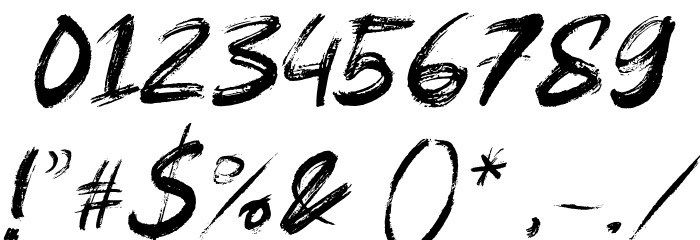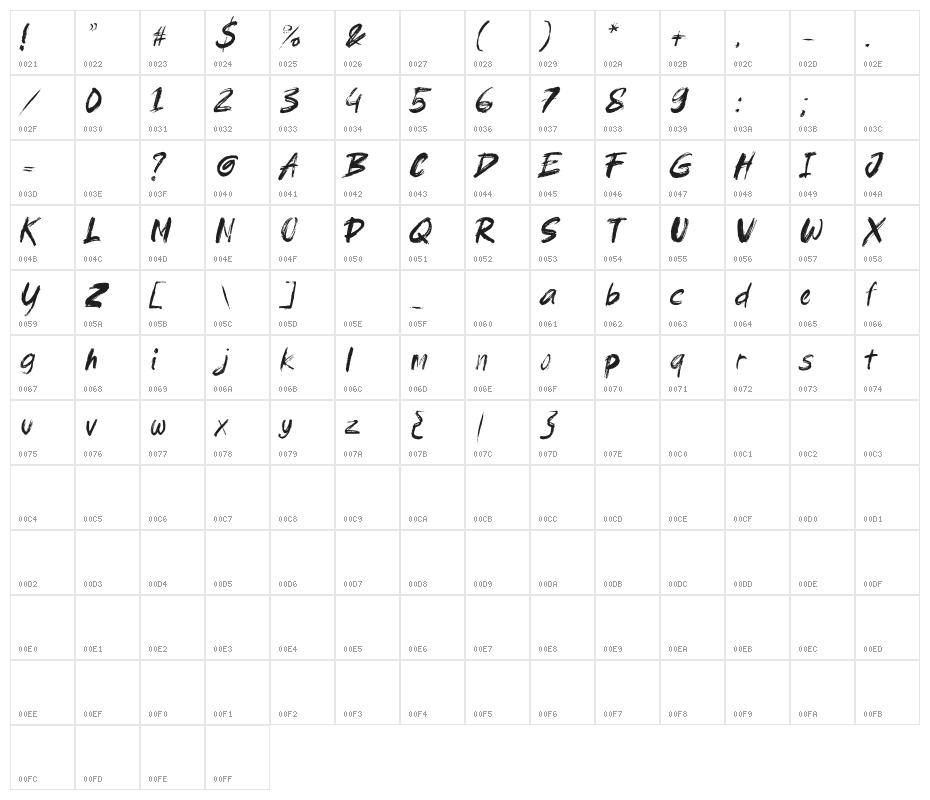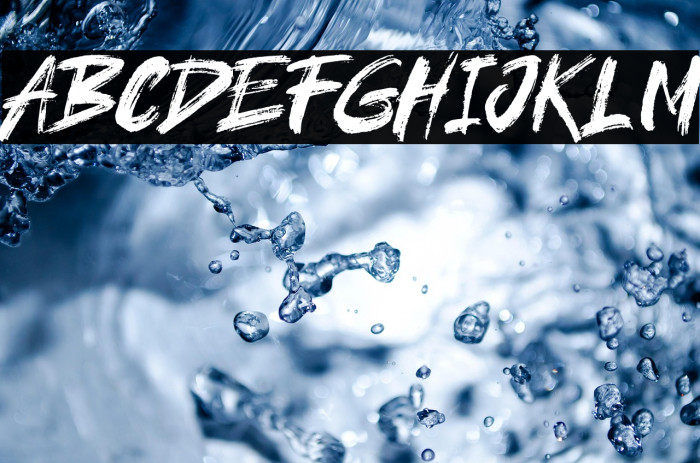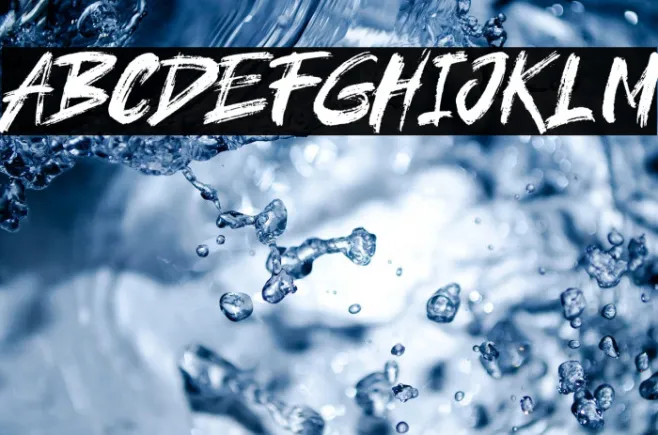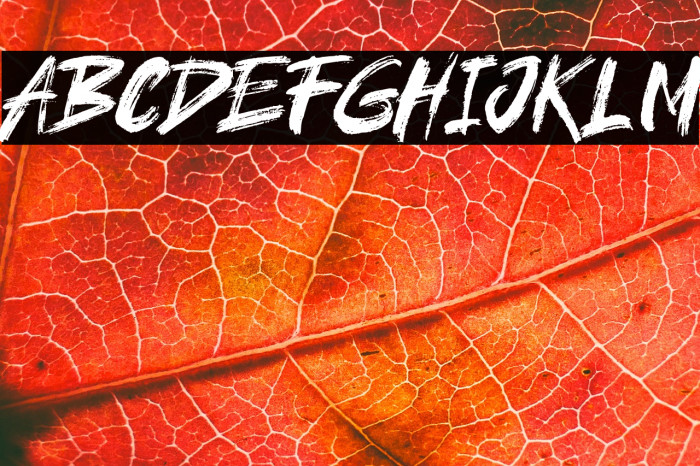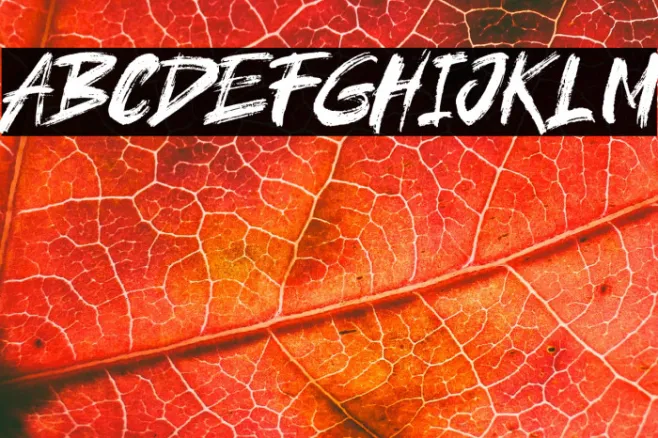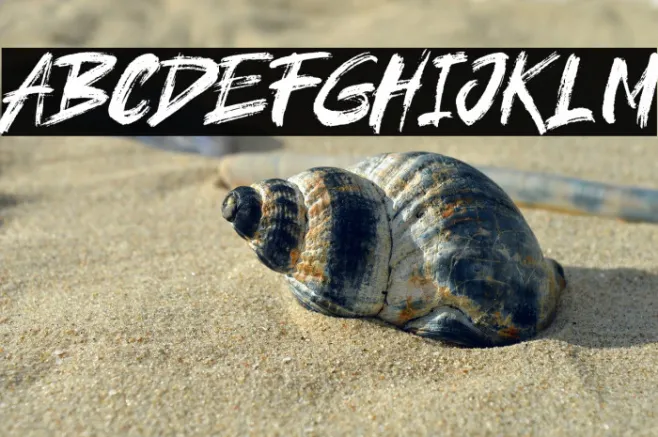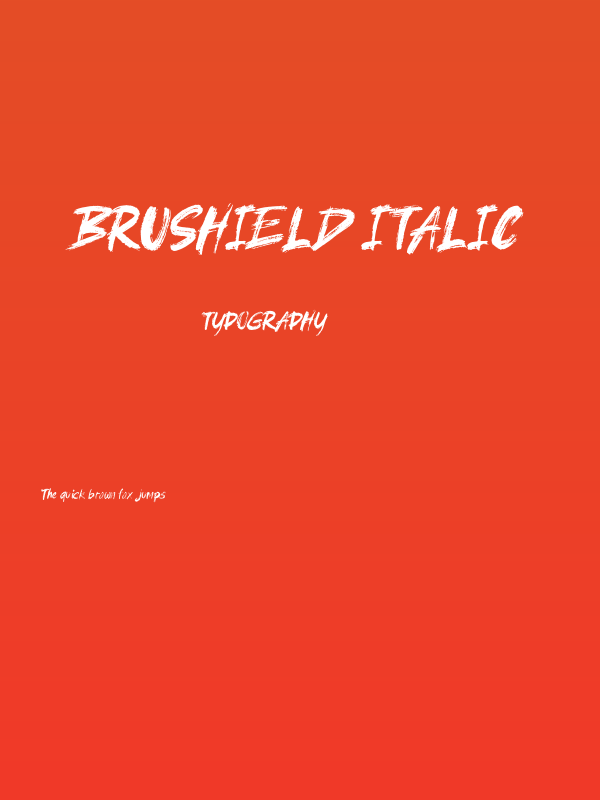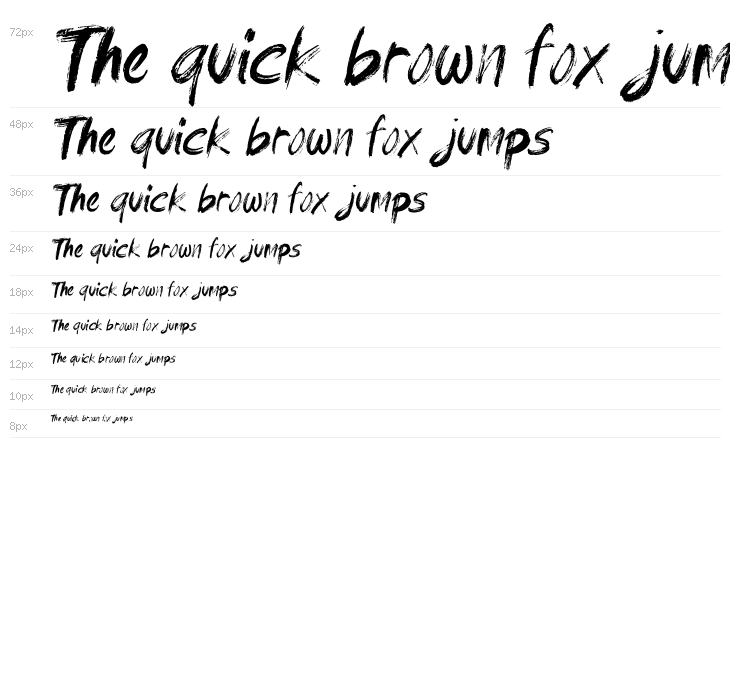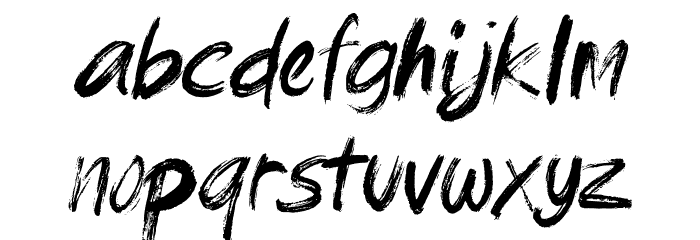
brushield Italic Font
brushield Italic Description
This font exudes a dynamic and energetic style, characterized by its bold, brush-like strokes that convey a sense of movement and spontaneity. The letters are crafted with a rough, textured appearance, giving them a hand-painted feel. The uppercase and lowercase characters maintain a consistent style, with slightly exaggerated curves and angles that enhance their visual impact. The numerals and special characters follow the same aesthetic, ensuring a cohesive look across all text elements. This font's unique style makes it ideal for projects that require a bold, artistic touch.